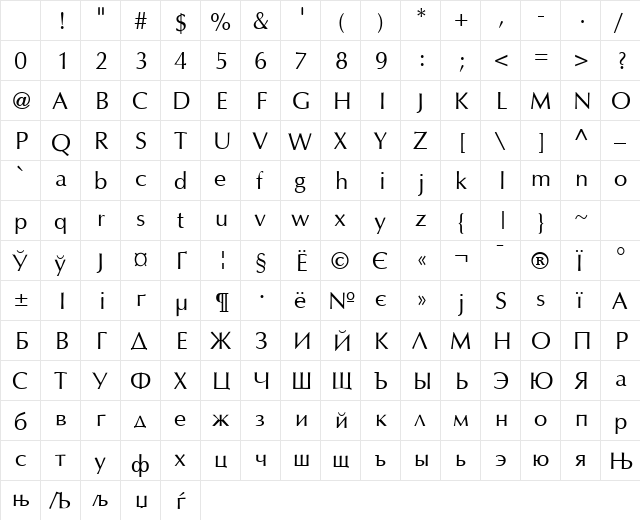
Complete AGOpusHighResolution Roman glyph index. Displaying only characters natively supported by AGOpusHighResolution Roman font.
AGOpusHighResolution is a composed and adaptable typeface that performs quietly and consistently across a wide range of design contexts.